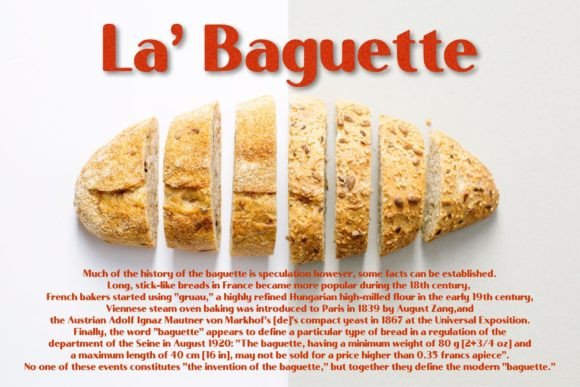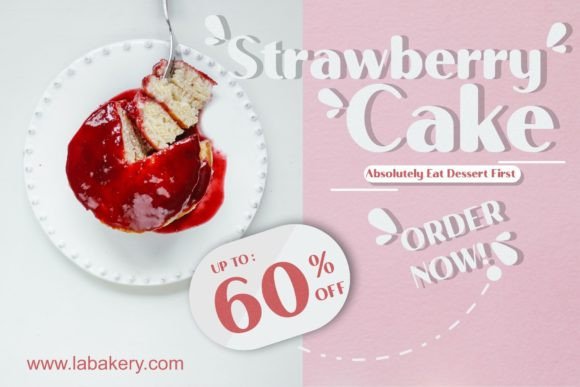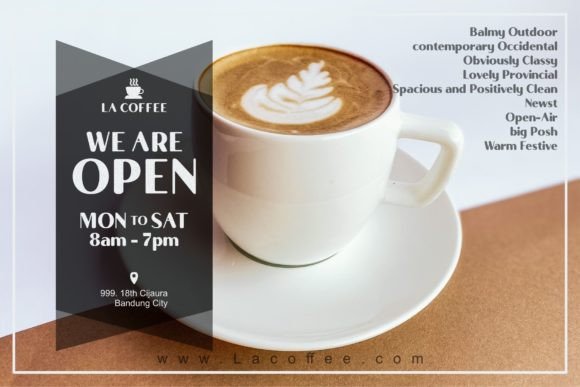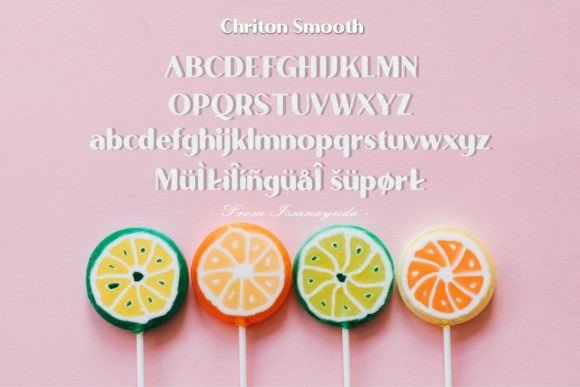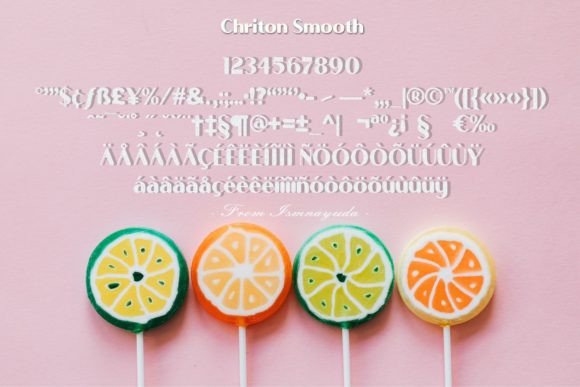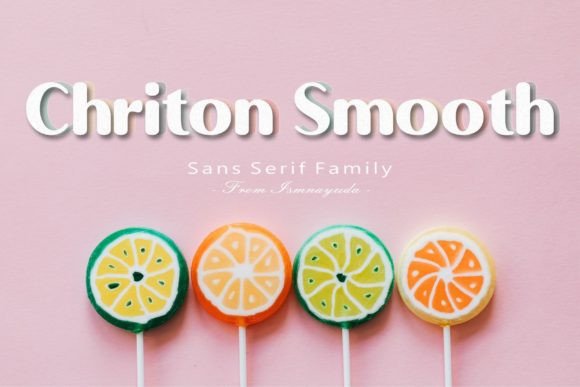
Introducing Chriton Smooth Font: Elevate Your Design with Sophistication and Elegance
In the world of typography, fonts play a crucial role in conveying the tone and personality of a brand or design project. For designers and crafters seeking a typeface that exudes sophistication and elegance, Chriton Smooth Font is an exceptional choice. This stylish and refined font is perfect for high-end fashion branding, editorial design, and digital interfaces, making it a versatile addition to any design arsenal.
The Essence of Chriton Smooth Font
Chriton Smooth Font boasts clean, minimalist lines that convey a sense of modernity and luxury. Its sleek and polished appearance is characterized by smooth curves and precise lines, creating a harmonious balance between form and function. This font’s refined aesthetic makes it an ideal choice for designers seeking to add a touch of class to their projects.
Key Features of Chriton Smooth Font
- Clean and Minimalist Design: Chriton Smooth Font features a clean and minimalist design, making it perfect for designs that require a touch of sophistication.
- Elegant and Refined Aesthetic: The font’s elegant and refined aesthetic makes it suitable for high-end fashion branding, editorial design, and digital interfaces.
- Smooth Curves and Precise Lines: The font’s smooth curves and precise lines create a harmonious balance between form and function.
- Versatile and Adaptable: Chriton Smooth Font is a versatile typeface that can be used in a variety of design projects, from luxury branding to digital interfaces.
Applications of Chriton Smooth Font
Chriton Smooth Font is a versatile typeface that can be used in a variety of design projects, including:
- High-End Fashion Branding: The font’s sophisticated and elegant aesthetic makes it perfect for high-end fashion branding, adding a touch of luxury to any brand identity.
- Editorial Design: Chriton Smooth Font is an excellent choice for editorial design, including magazines, newspapers, and books, where a touch of elegance and sophistication is required.
- Digital Interfaces: The font’s clean and minimalist design makes it suitable for digital interfaces, including websites, mobile apps, and user interfaces.
Benefits of Using Chriton Smooth Font
By incorporating Chriton Smooth Font into your design projects, you can:
- Elevate Your Brand Identity: Add a touch of sophistication and elegance to your brand identity, making it stand out in a crowded market.
- Enhance Readability: The font’s clean and minimalist design ensures excellent readability, making it perfect for body text and headings.
- Increase Versatility: Chriton Smooth Font is a versatile typeface that can be used in a variety of design projects, making it a valuable addition to your design arsenal.
Chriton Smooth Font is a stylish and refined typeface that exudes sophistication and elegance. Its clean, minimalist lines convey a sense of modernity and luxury, making it perfect for high-end fashion branding, editorial design, and digital interfaces. With its versatile and adaptable nature, Chriton Smooth Font is an excellent choice for designers and crafters seeking to add a touch of class to their design projects.